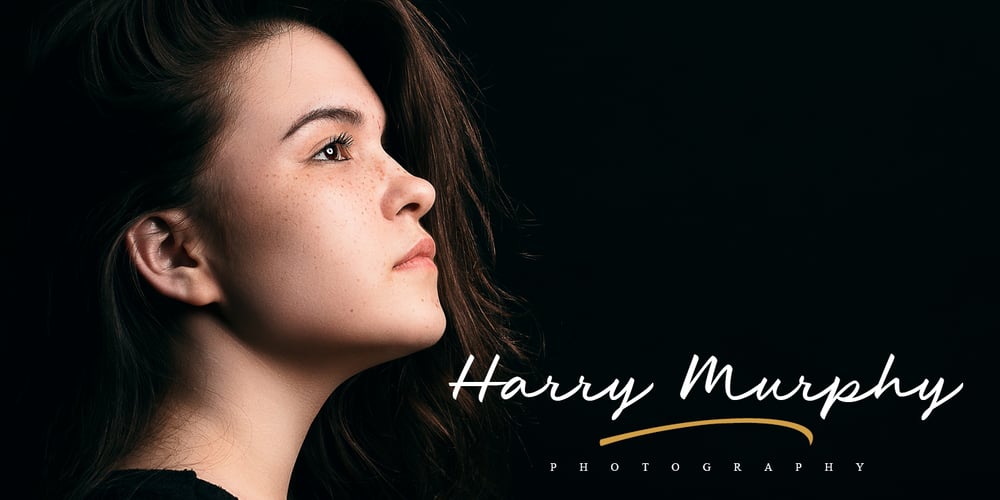
Etheryna
Etheryna font
Etheryna Font Family was designed by Yanuar Adi and published by Typehand Studio. Etheryna contains 1 styles and family package options. Etheryna Handwriting Calligraphy Series from us. Etheryna is handwritten signature script with a natural & stylish flow. This collection of scripts is perfect for personal branding.In order to use the beautiful swashes, you need a program that supports OpenType features such as Adobe Illustrator CS, Adobe Photoshop CC, Adobe Indesign and Corel Draw.